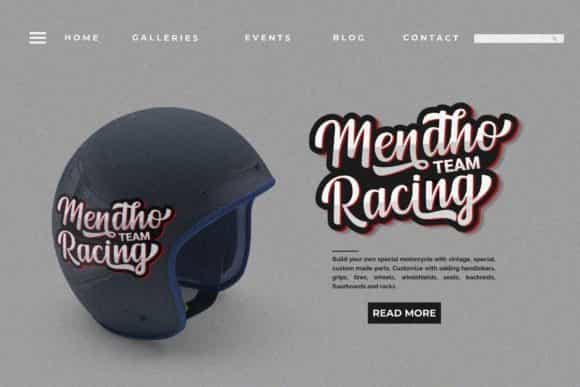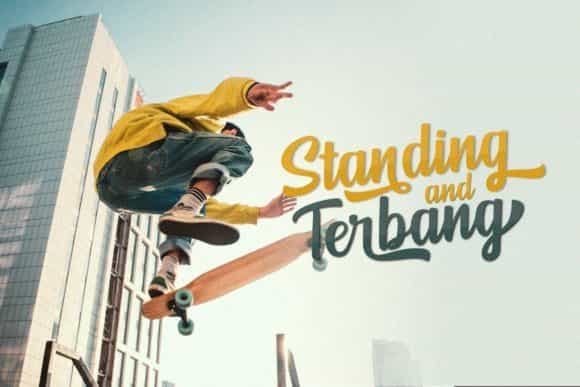
Discover Mendoan Calligraphy Font, part of the Commercial Calligraphy collection—a versatile and unique font perfect for adding a personal touch to your projects. Download it for free and enjoy crafting designs with style, from invitations to social media posts. This font is available exclusively for personal use, giving you the freedom to create without limits. Unlock your creativity with Mendoan Calligraphy Font today!
Mendoan is the revival of the old advertising fonts that were used in the past century. This dynamic and nostalgic script is great for any message delivery with style and confidence!